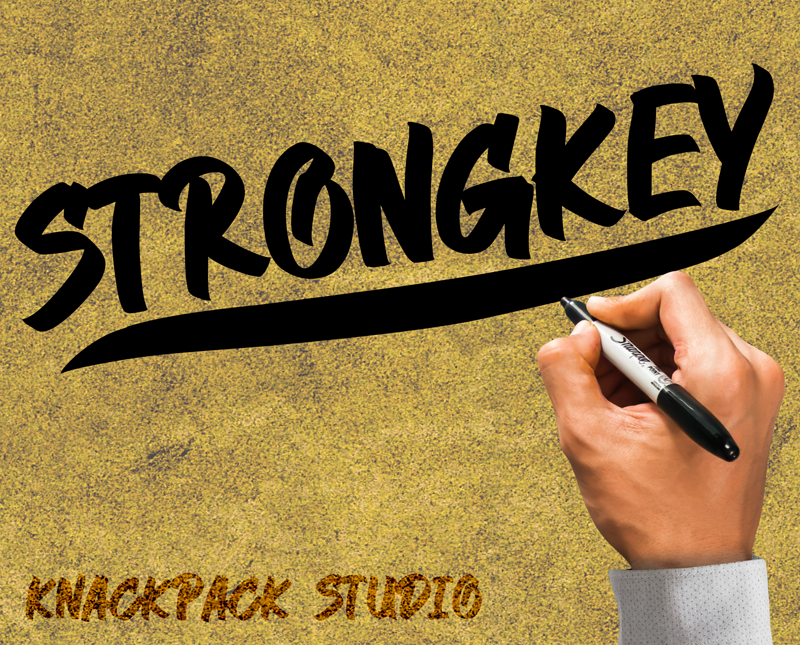
Preview and download Strongkey Font. Created by Knackpack Studio in Script Brush styles with Demo license.
- Introducing - STRONGKEY -Bold Clean Marker type perfect for your Logo, banner, and all projects. -All Capital 100% FREE for Personal. Donation is Highly appreciated. :) FULL / Commercial Version available at Website: http://www.knackpack.studio/fonts CM: https://creativemarket.com/knackpackstudio E N J O Y |